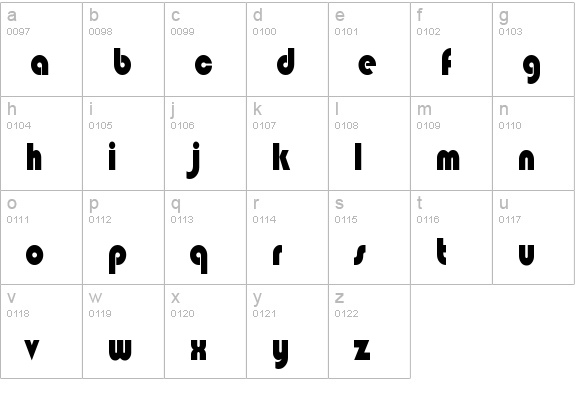
BixleeCnd-Heavy Font Details
BixleeCnd-Heavy is a heavy, high-impact variant in the BixleeCnd typeface family \xE2\x80\x94 well suited to high-impact headlines, posters, and display advertising.
BixleeCnd-Heavy is a bold and commanding font that exudes strength and confidence. With its thick strokes and sharp angles, this typeface makes a bold statement in any design project. Whether you are looking to create eye-catching headlines or striking logos, BixleeCnd-Heavy is sure to make a lasting impression. The best part? BixleeCnd-Heavy is available for free download at FontsMarket.com. This means you can add this powerful font to your collection without breaking the bank. Don't miss out on the opportunity to enhance your designs with the striking presence of BixleeCnd-Heavy. Download it today and unleash its potential in your next project!